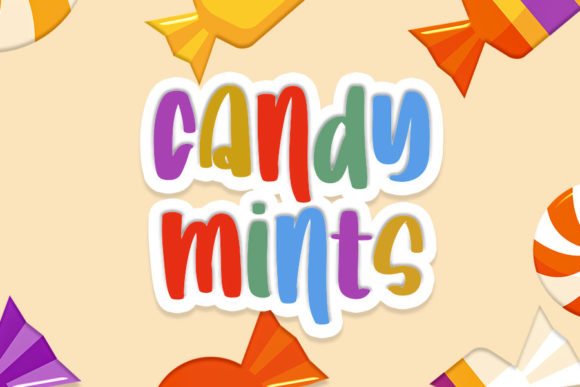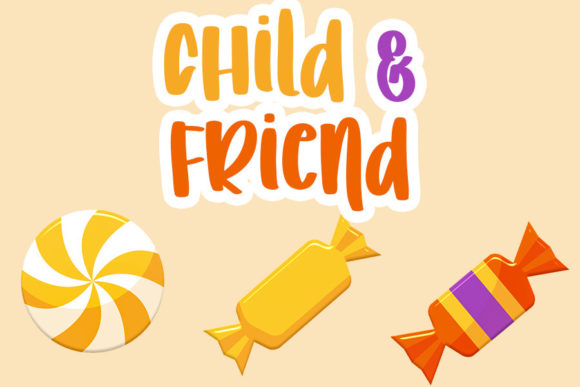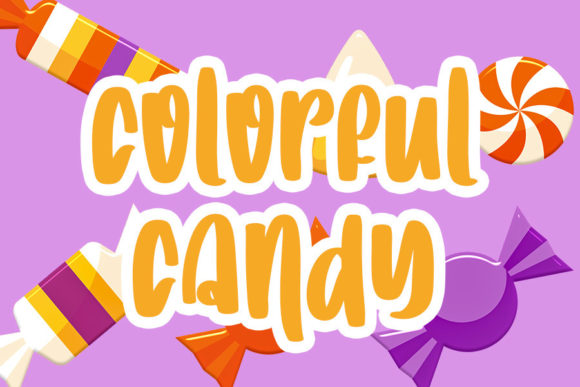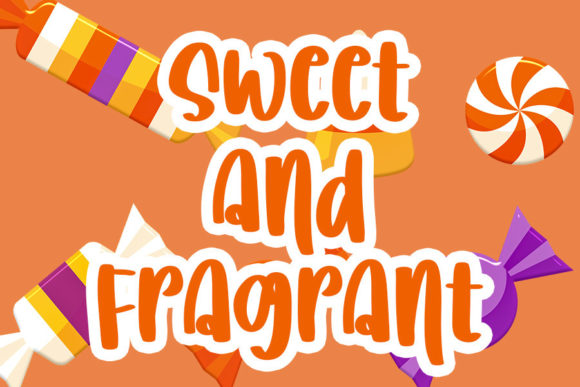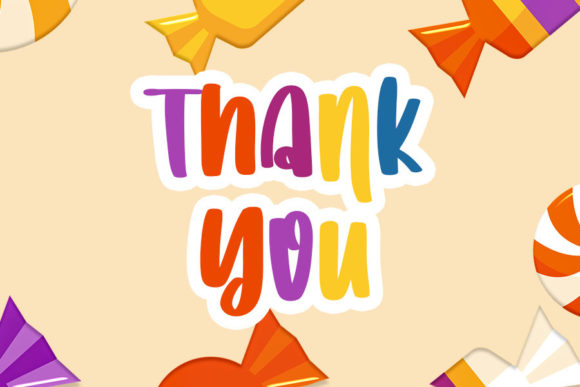
Candy Mints Font
Candy Mints is a sweet, quirky and flexible handwritten font. It embodies playfulness and authenticity and is the perfect choice for any children activity or school project.